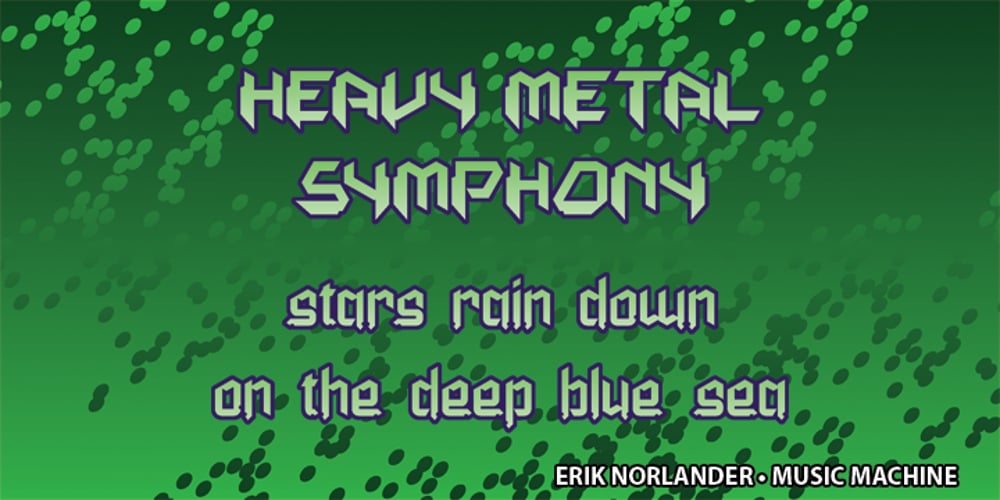
Byrning Bridgez Font Family was designed by Ronnie Cruz and published by Cyberian Khatru. Byrning Bridgez contains 1 styles and family package options. This font is created specifically for the purpose of creating logos for Progressive Rock bands. Such bands oftentimes have their logos designed by Fantasy artists such as Roger Dean and Rodney Matthews. The capitals and lower case are distinct enough from each other to be completely separate fonts. I decided, however, to combined them as one font. http://homepage.mac.com/baronvoncruzer/cyberiankhatru/byrningbridgez.htm